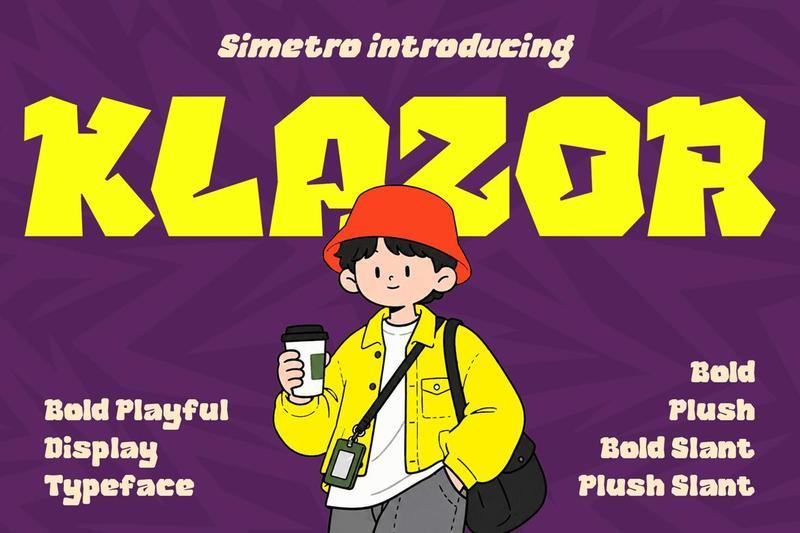
Klazor Bold Playful Display Typeface MMYE8YD
Klazor is a loud and energetic bold playful display typeface that brings a joyful, quirky touch to your creative work. With its thick, chunky letterforms and dynamic style variations, Klazor captures the fun of premium typography while maintaining massive visual impactperfect for a vibrant, youthful, and eye-catching aesthetic, and social media graphics.
Designed to be both expressive and versatile, Klazor comes in four distinct styles (Bold, Plush, Bold Slant, and Plush Slant) to give your text the exact voice it needs. Including a full set of uppercase and lowercase letters, numerals, and punctuation, this font adapts beautifully to both print and digital projects. Whether you’re working on playful food and beverage packaging, a vibrant event poster, or a dynamic YouTube thumbnail, Klazor ensures your message reaches a global audience with its extensive support for 90 languages.
Add a sense of loud, creative freedom to your design with Klazora font that proves letters can be soft without being quiet.